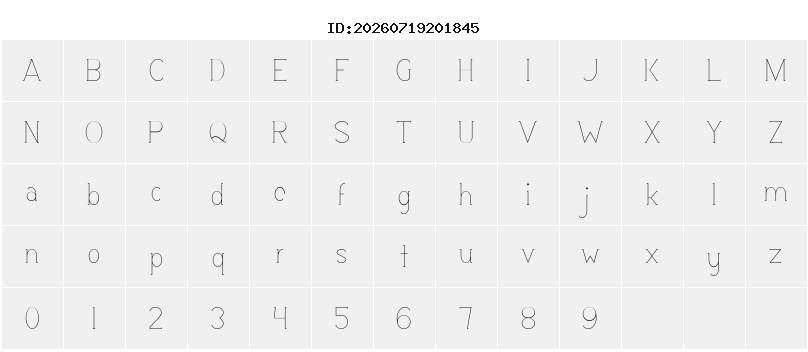
Espacio Preview
• Font Name: Espacio
• Full Font Name: Espacio
• Version: Version 1.00 October 9, 2011, initial release
About Espacio.ttf
Espacio.ttf is a modern, elegant sans-serif font designed for ultimate readability and visual harmony. Perfect for branding, headlines, web design, and print materials.